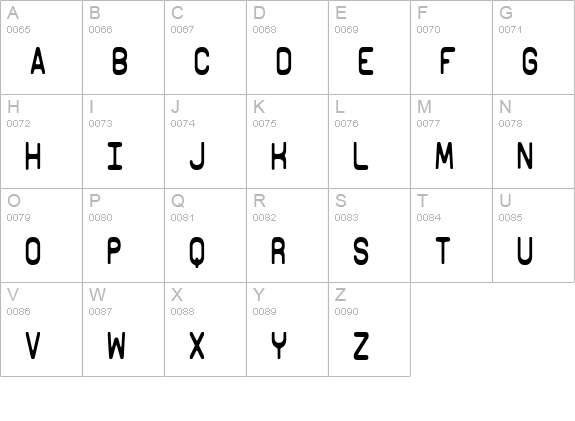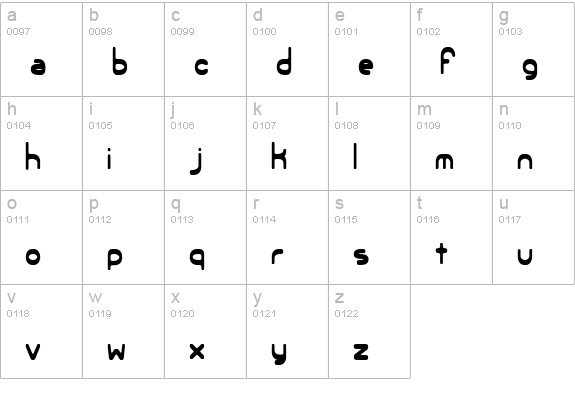
Elsewhere -BRK- is a unique and eye-catching font that exudes creativity and modernity. With its bold and geometric design, this font is perfect for making a statement in your projects. Whether you're designing a poster, logo, or website, Elsewhere -BRK- will surely stand out and captivate your audience. What makes Elsewhere -BRK- even more appealing is that it is completely free to download at FontsMarket.com. You can easily add this versatile font to your collection without any cost, making it a great choice for designers on a budget. Don't miss out on the opportunity to enhance your designs with the striking aesthetic of Elsewhere -BRK-. Download it today and let your creativity soar!